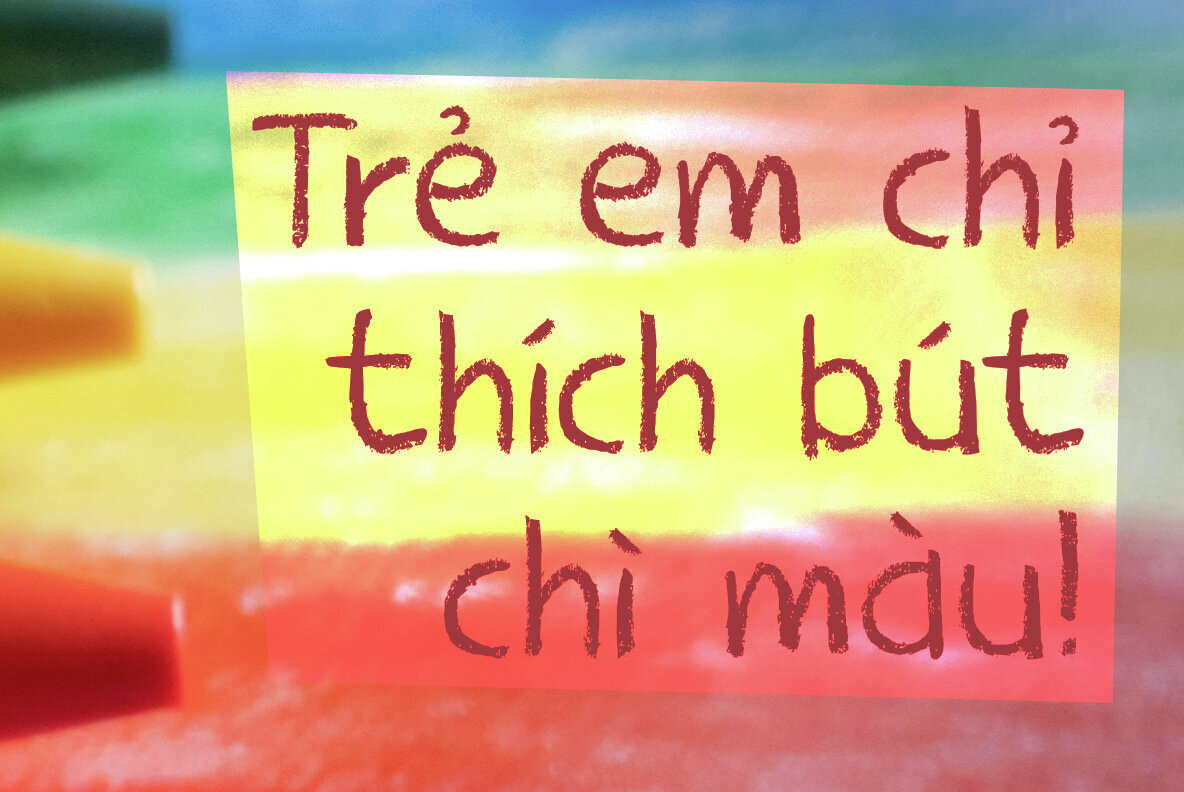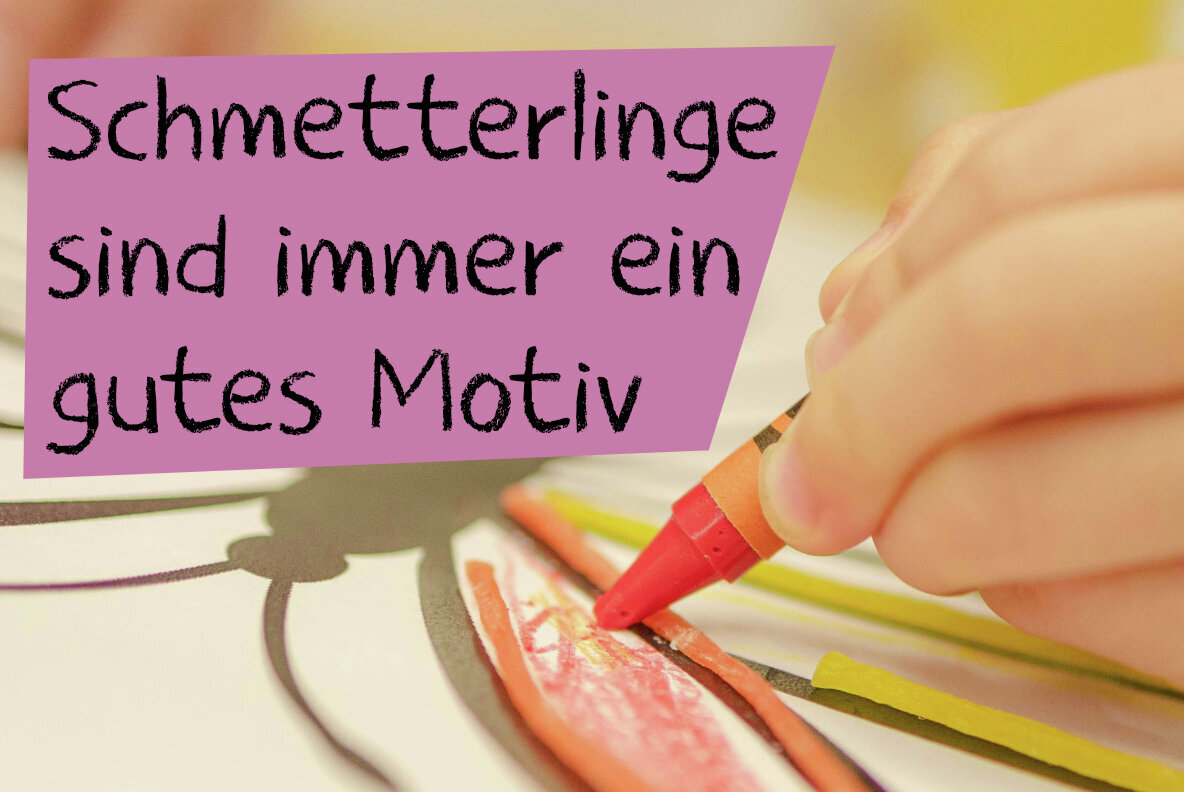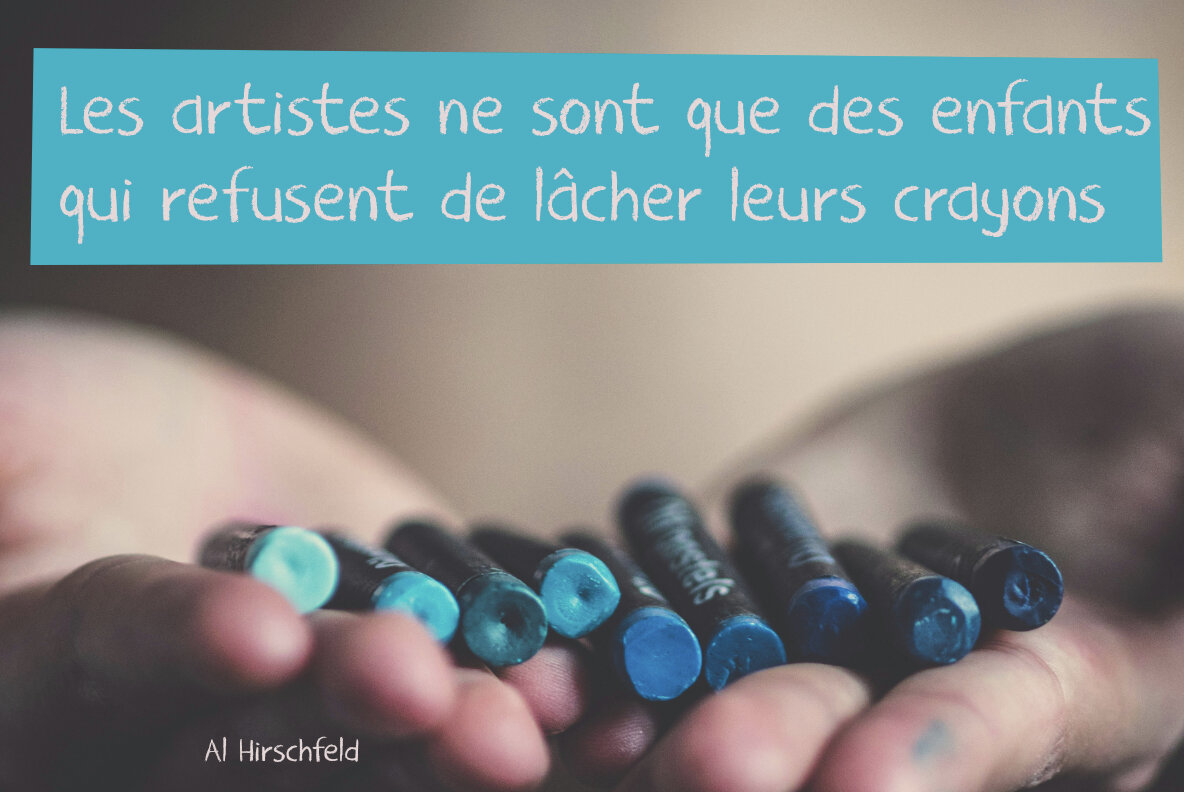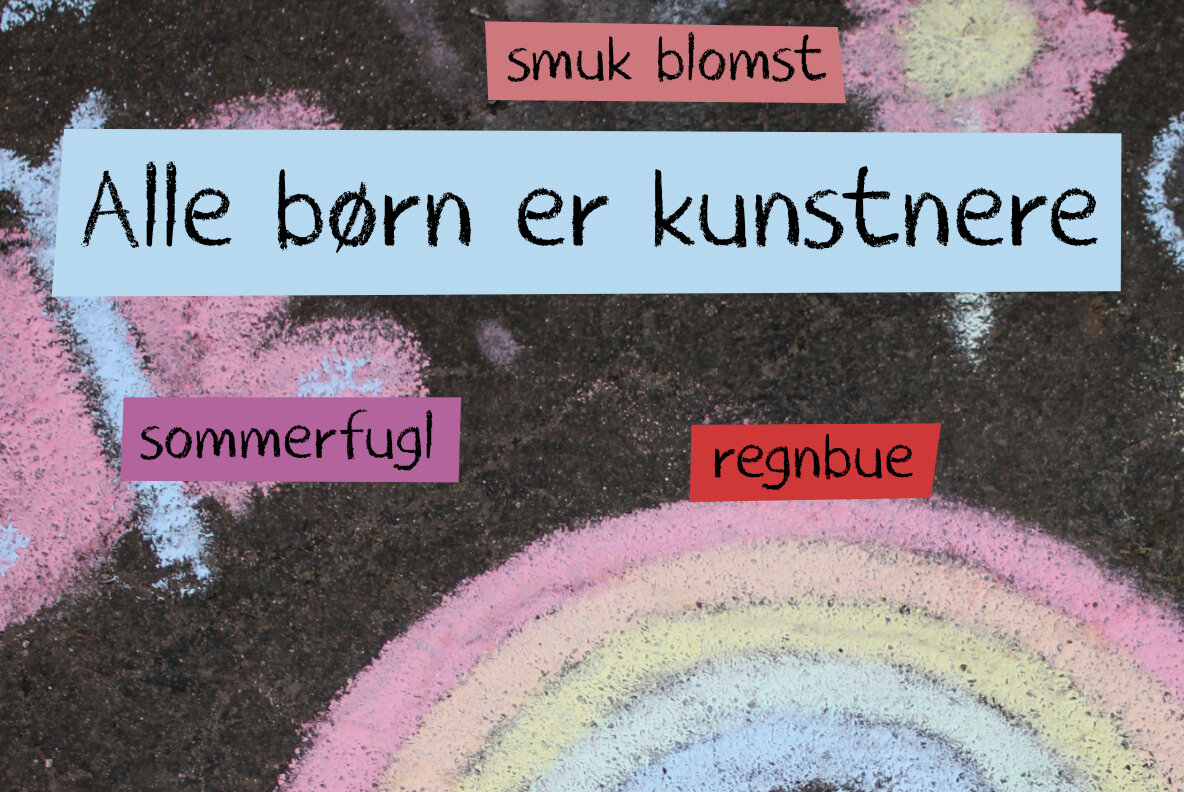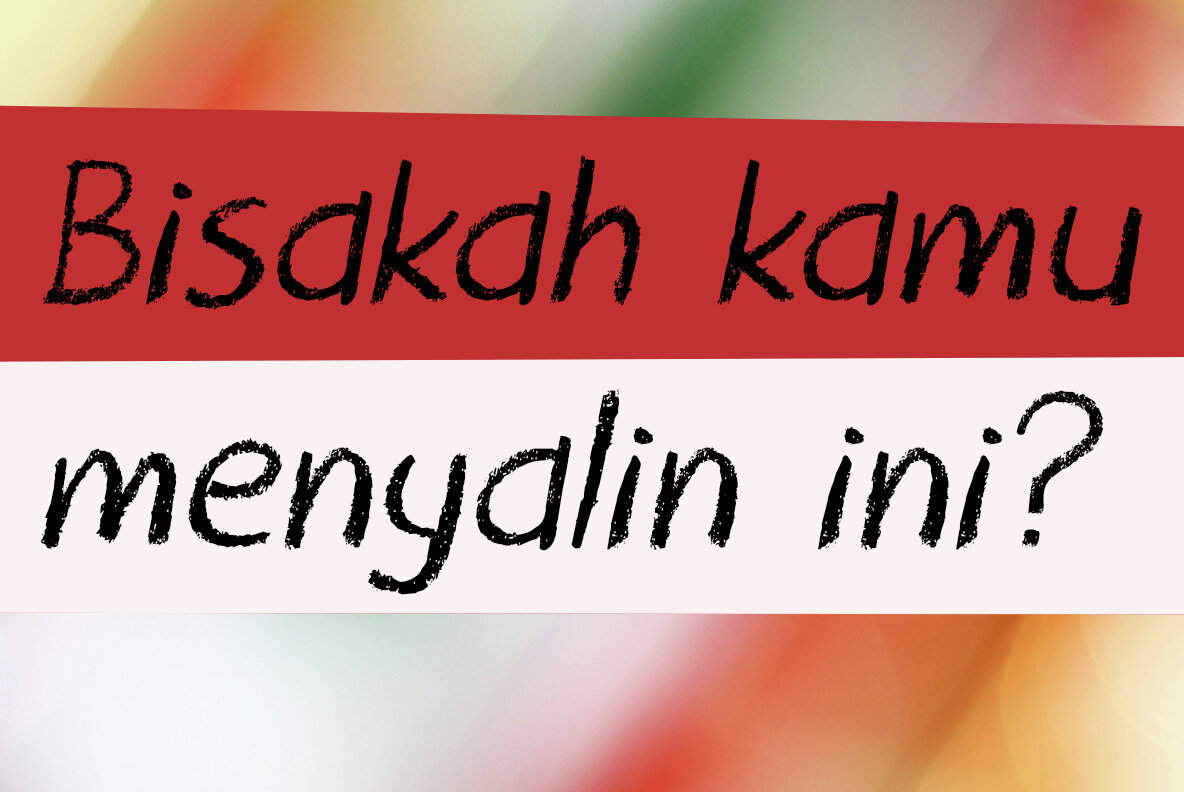
Crayon Crumble 2024 Font
Crayon Crumble 2024 builds on the charm and success of the original Crayon Crumble released in 2011. Created using a crumbling black crayon, the font achieved instant popularity, finding its way into books, games, toys, supermarket banners, album covers, and packaging. This updated version retains the nostalgic appeal of its predecessor but comes with several enhancements.
The 2024 edition includes comprehensive language support and new glyphs, addressing the limitations of the original font. Some of the rougher glyphs have been refined, offering a cleaner and more polished look while maintaining the unique, handmade feel. Ideal for projects requiring a playful, textured touch, Crayon Crumble 2024 seamlessly blends the charm of the old with the functionality of the new.